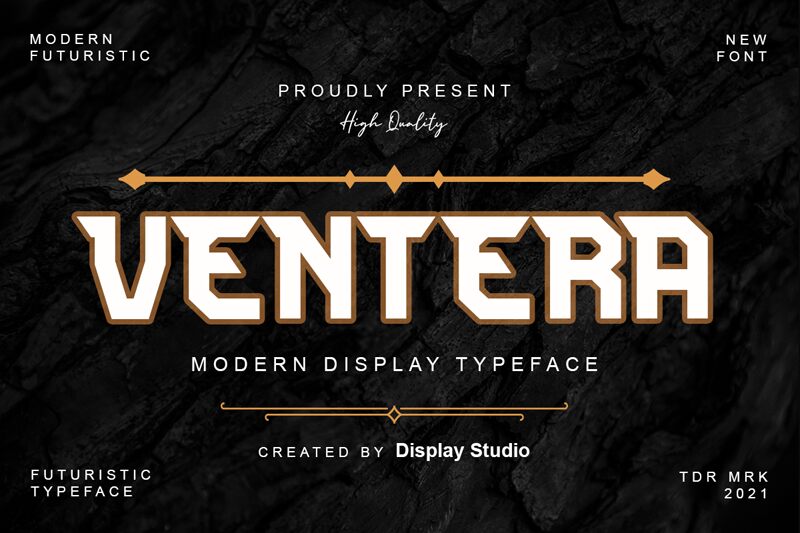
Ventera
Ventera by Display Studio is a powerful display font that exudes a futuristic and technological vibe. Its bold weight makes it perfect for headlines, logos, and posters that require attention-grabbing typography. The techno style of Ventera adds a touch of sophistication and modernity to any design project, whether it be for high-tech startups, gaming companies or music events. With its distinct personality and versatile nature, Ventera is the go-to font for designers who want to make an impact with their designs. Give your projects an edge with Ventera's bold presence and cutting-edge style.